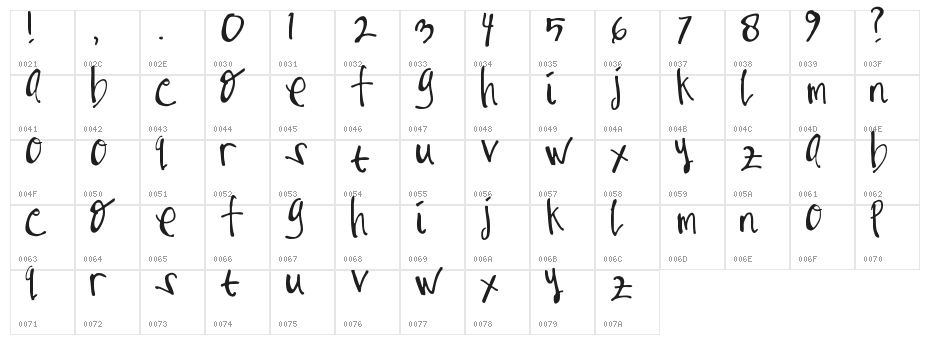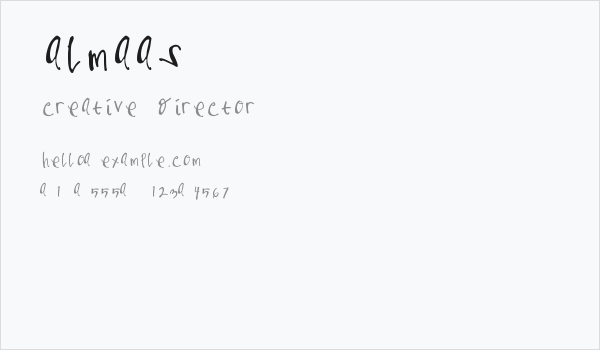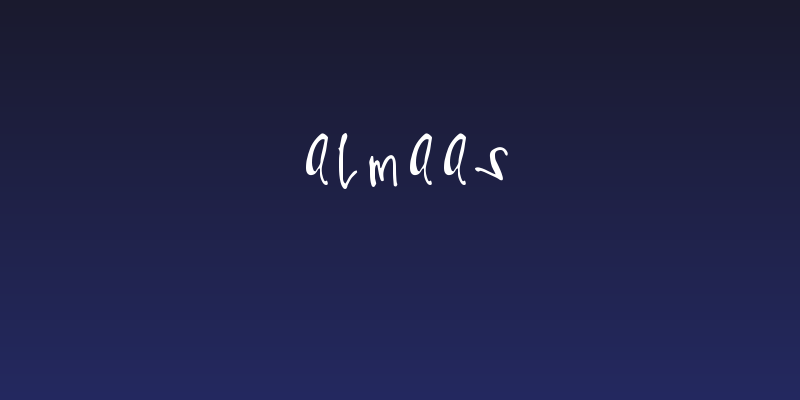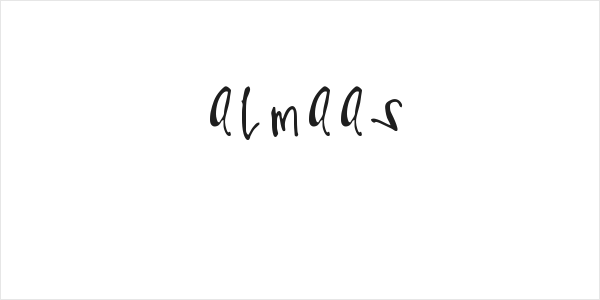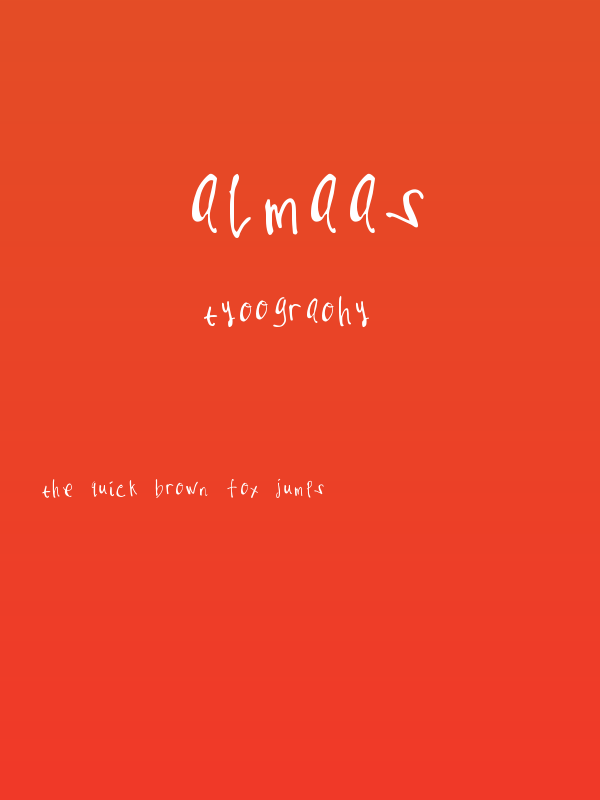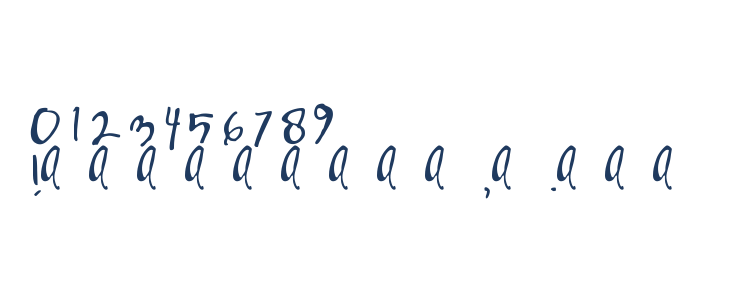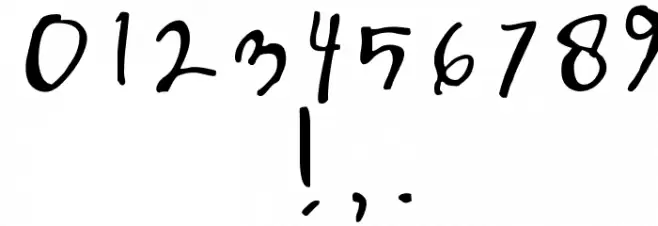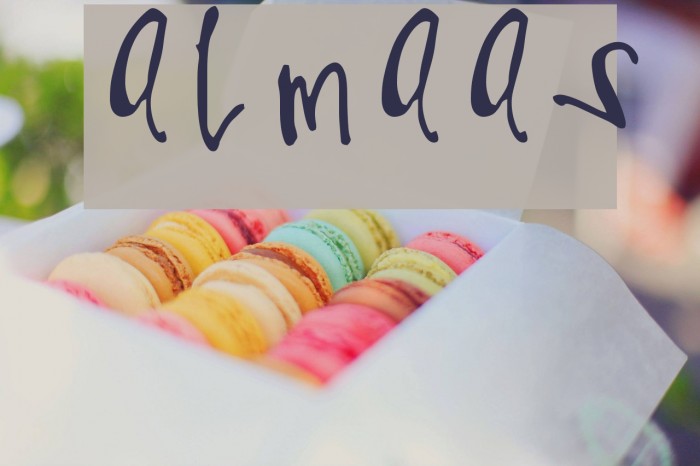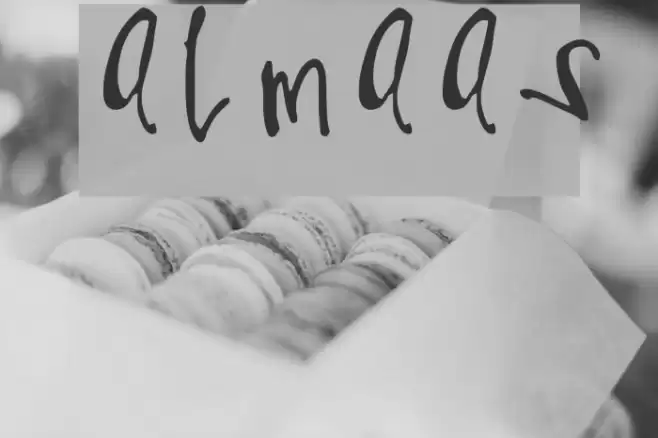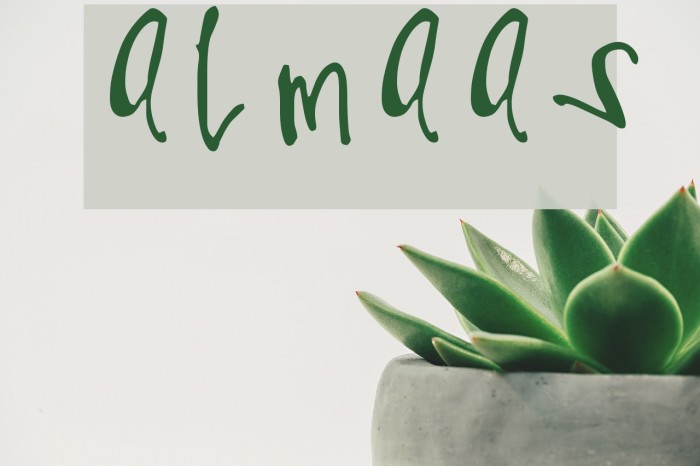
almaas Font
almaas Description
This font features a playful and informal handwritten style, characterized by its irregular and organic letterforms. The strokes are uneven, giving it a casual and personal touch, reminiscent of a quick note or a personal letter. The characters have a slight slant, adding to the dynamic and lively feel. The numbers and special characters maintain the same whimsical quality, ensuring consistency throughout the typeface. This font is perfect for projects that require a human touch or a sense of spontaneity.
| Proposed Projects | Ideal for greeting cards, personal notes, casual invitations, and creative projects that require a personal touch. |